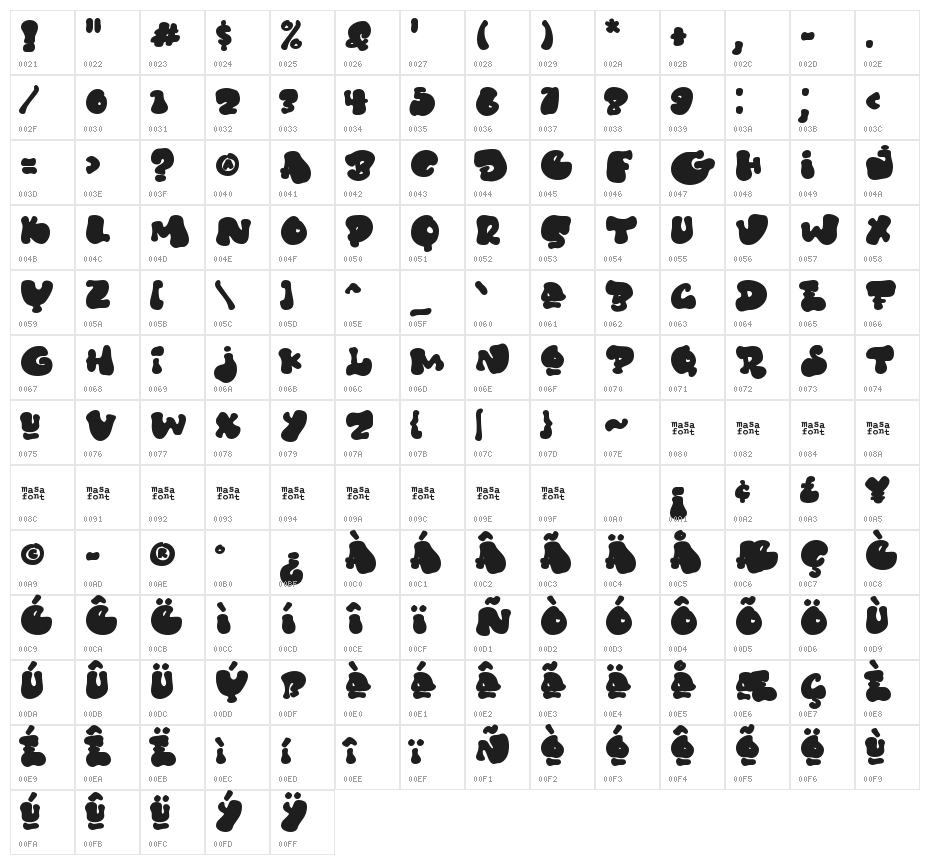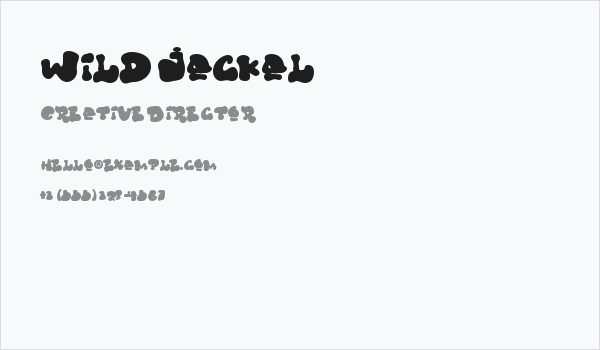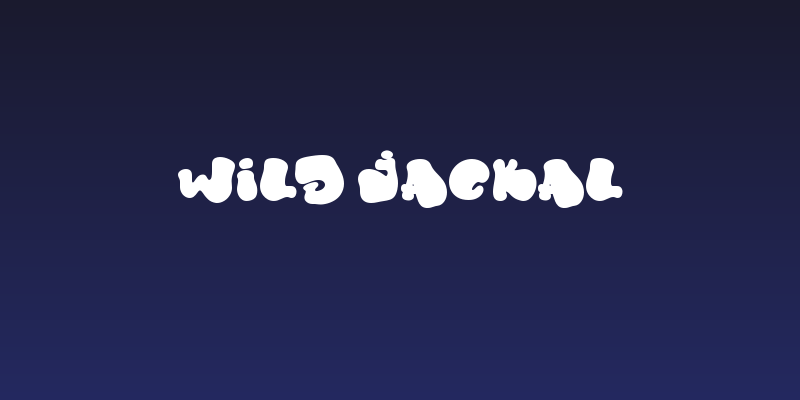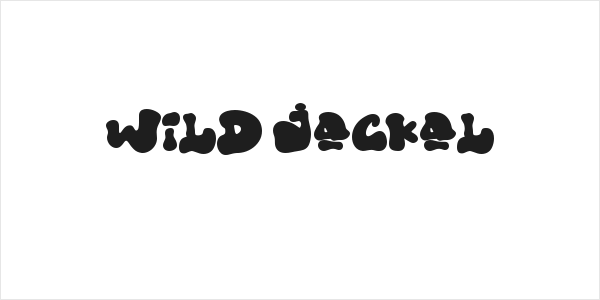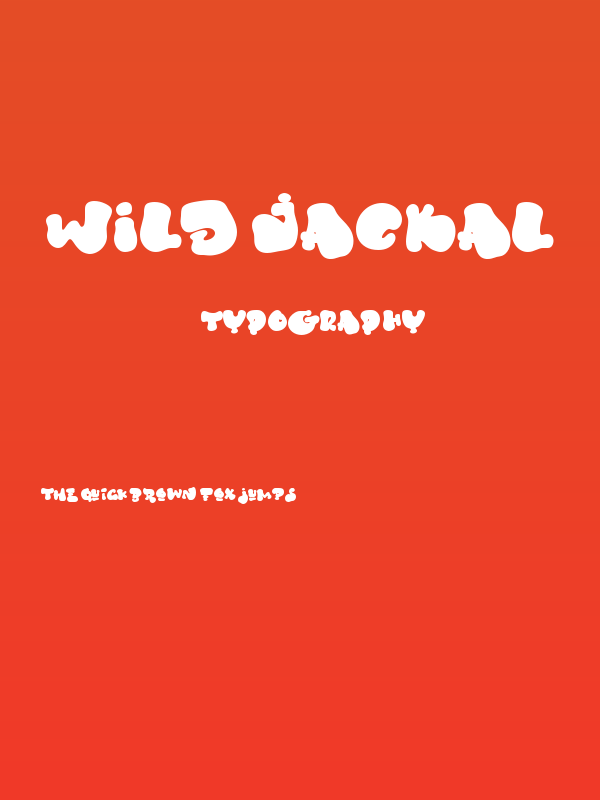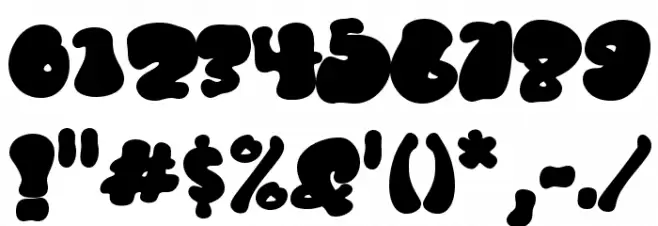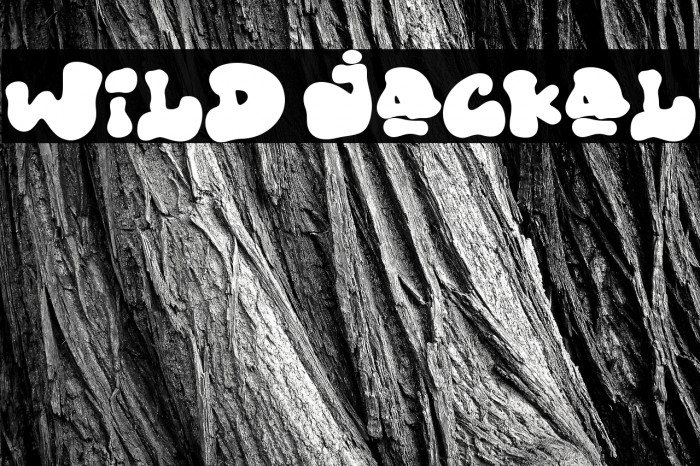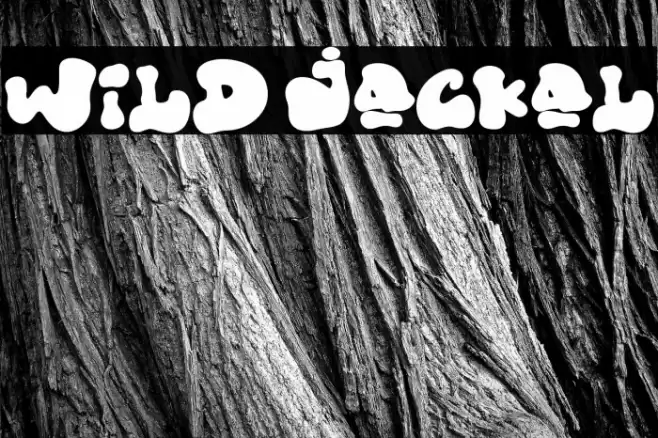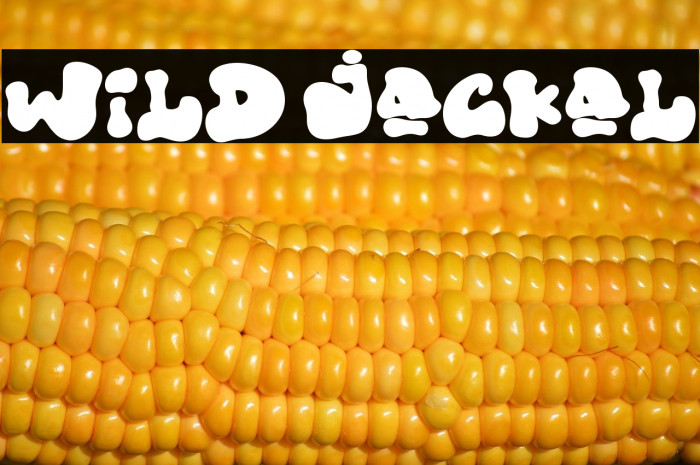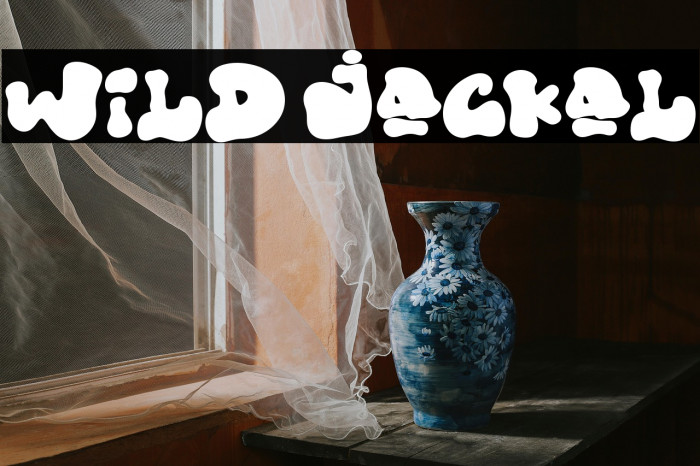
Wild Jackal Font
Wild Jackal Description
This font features a bold and playful design with a bubbly, rounded appearance. The characters are thick and have a whimsical, almost cartoonish style, making them stand out with a strong visual impact. The letters are uniformly bold with a consistent stroke width, giving them a cohesive look. The font's playful nature is enhanced by its irregular shapes and exaggerated curves, making it ideal for creative and fun projects. The characters are closely spaced, adding to the compact and energetic feel of the font. Its unique style is perfect for capturing attention and conveying a sense of fun and excitement.
| Overall Style | Playful, Whimsical |
| Use Case | Logos, Posters, Headlines |
| Proposed Projects | Ideal for children's books, playful branding, party invitations, and creative posters. |